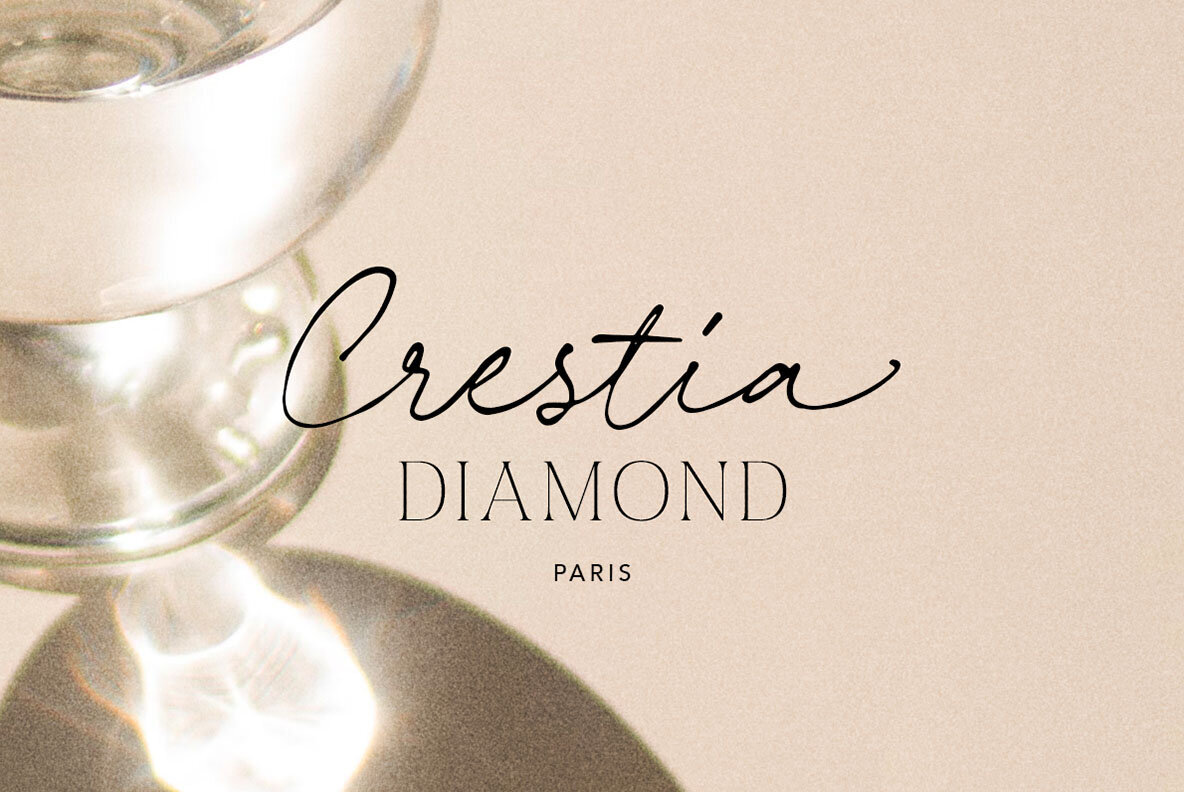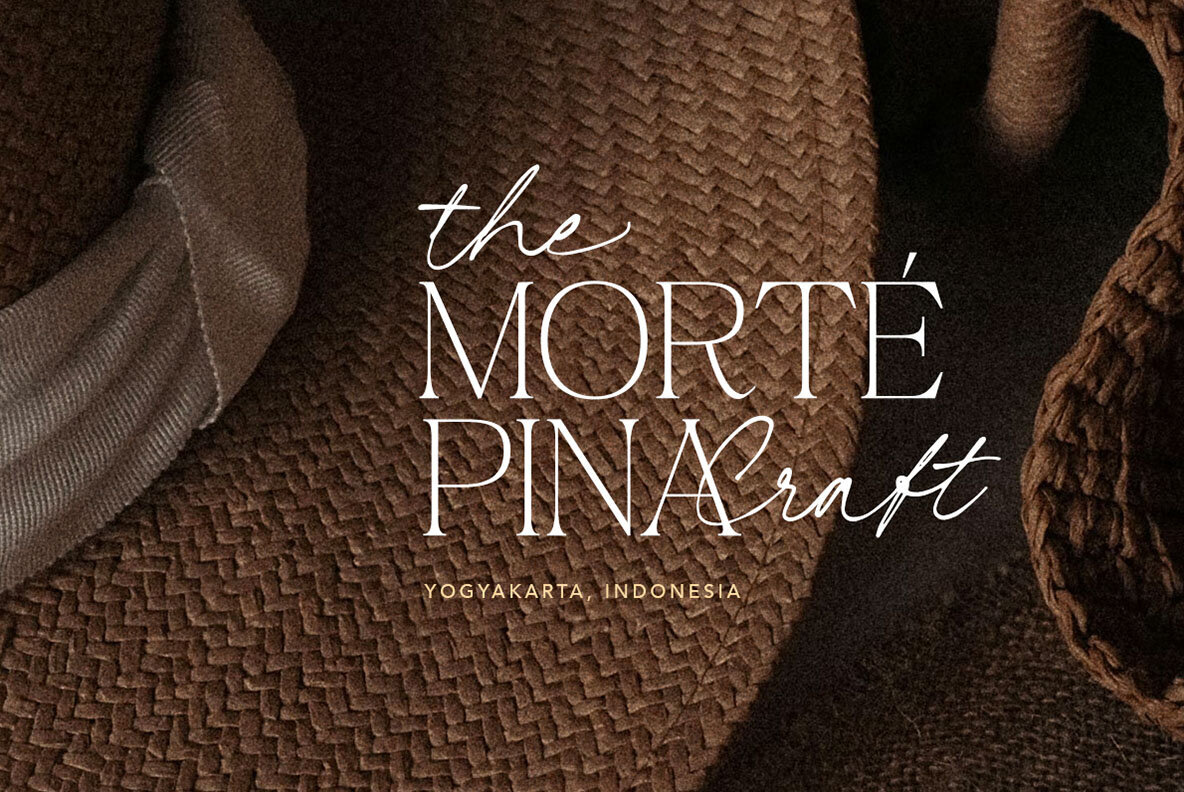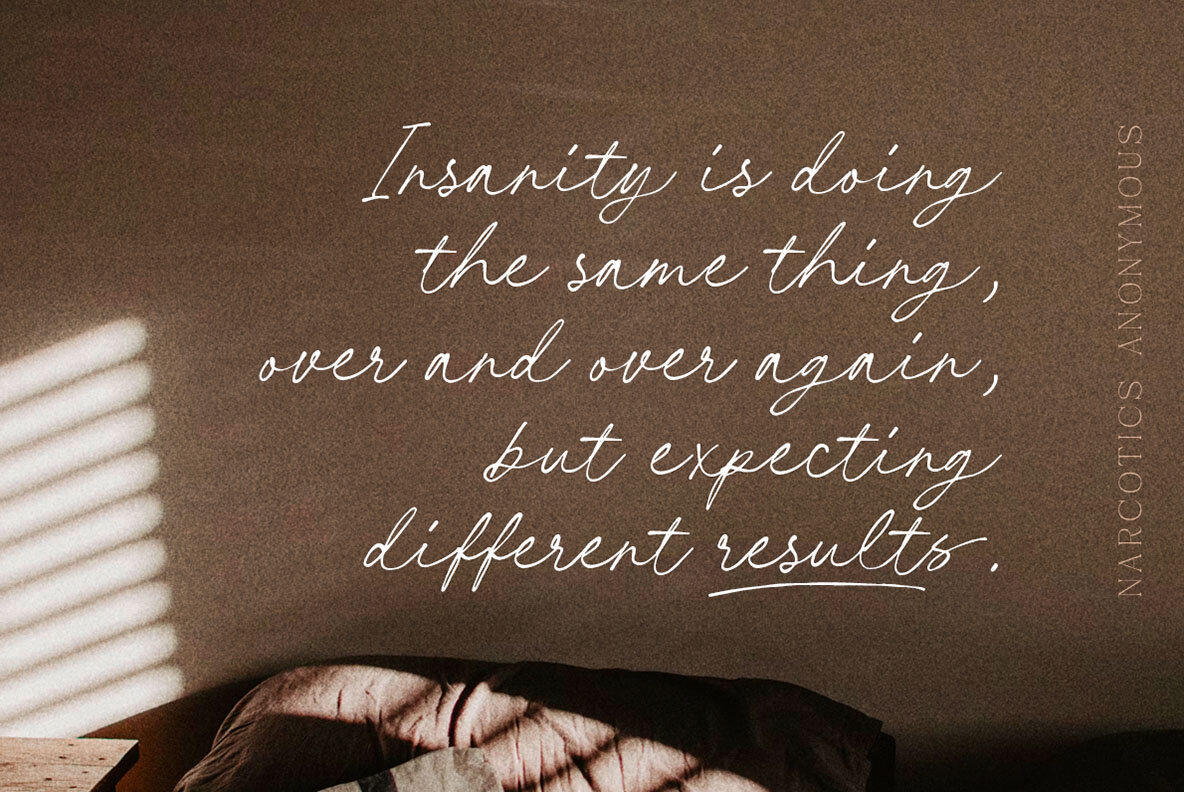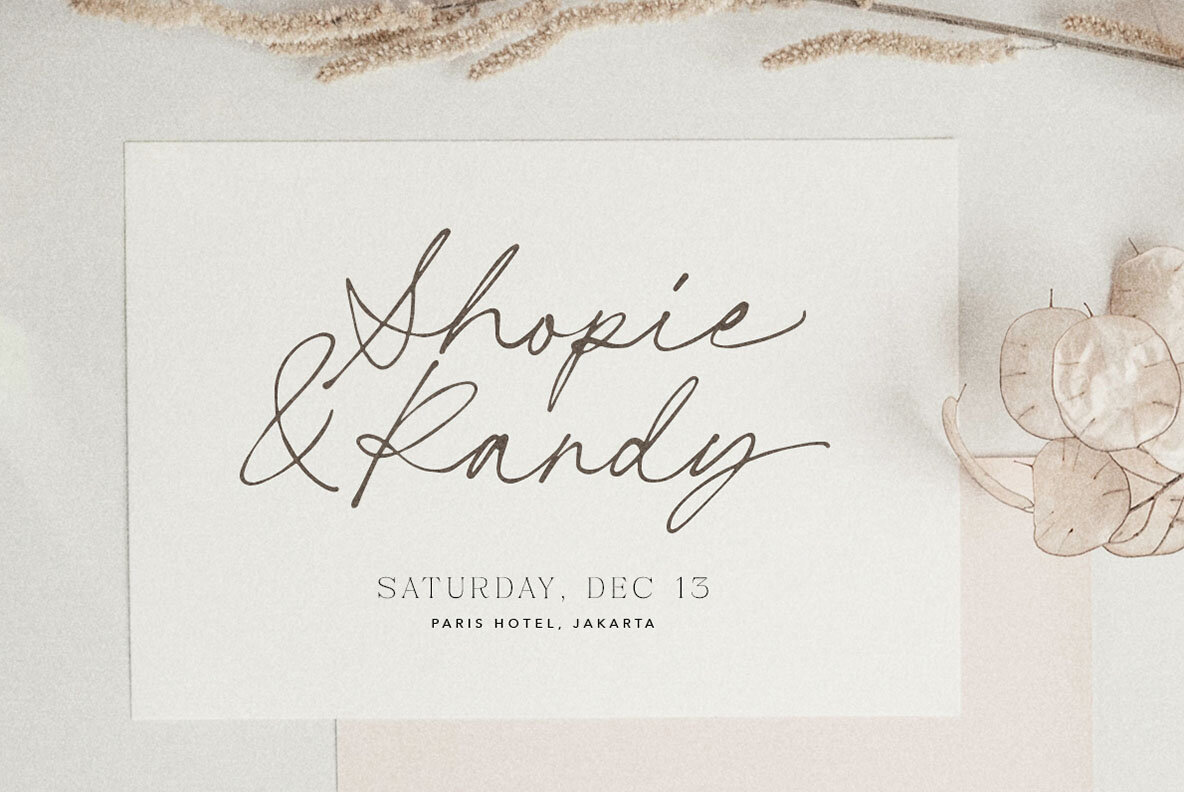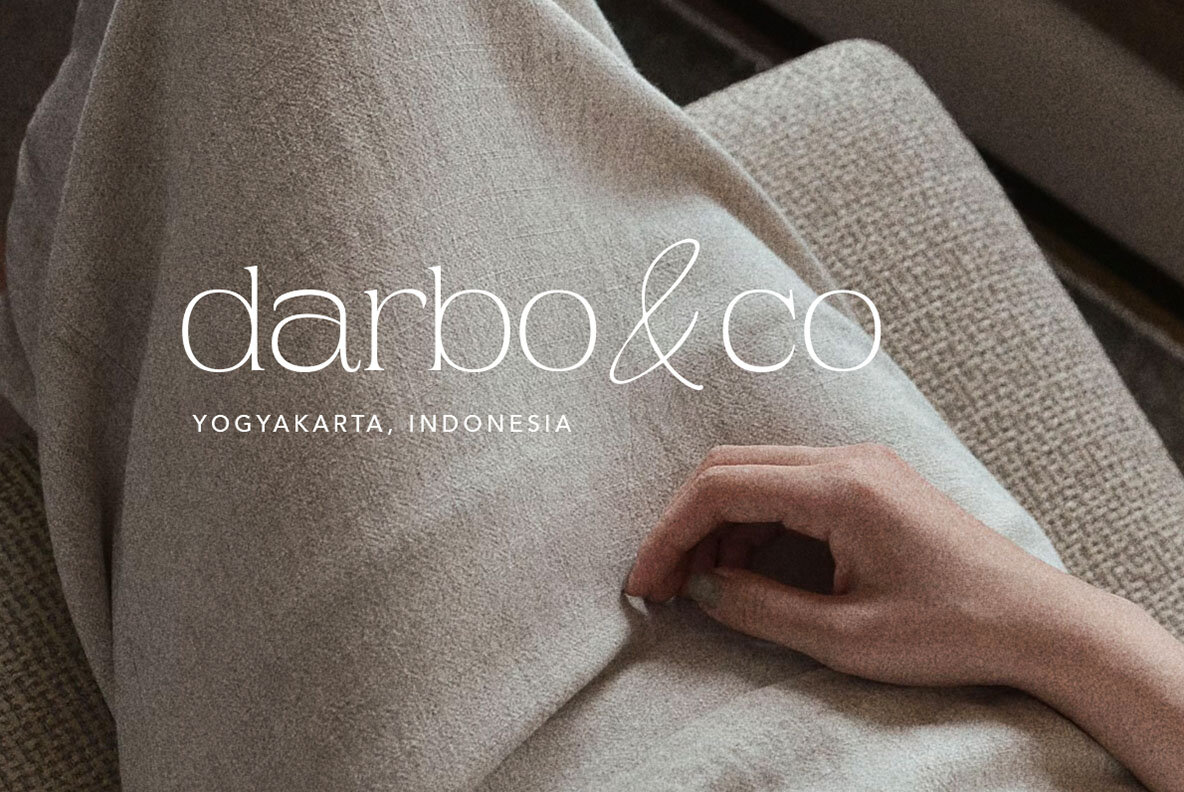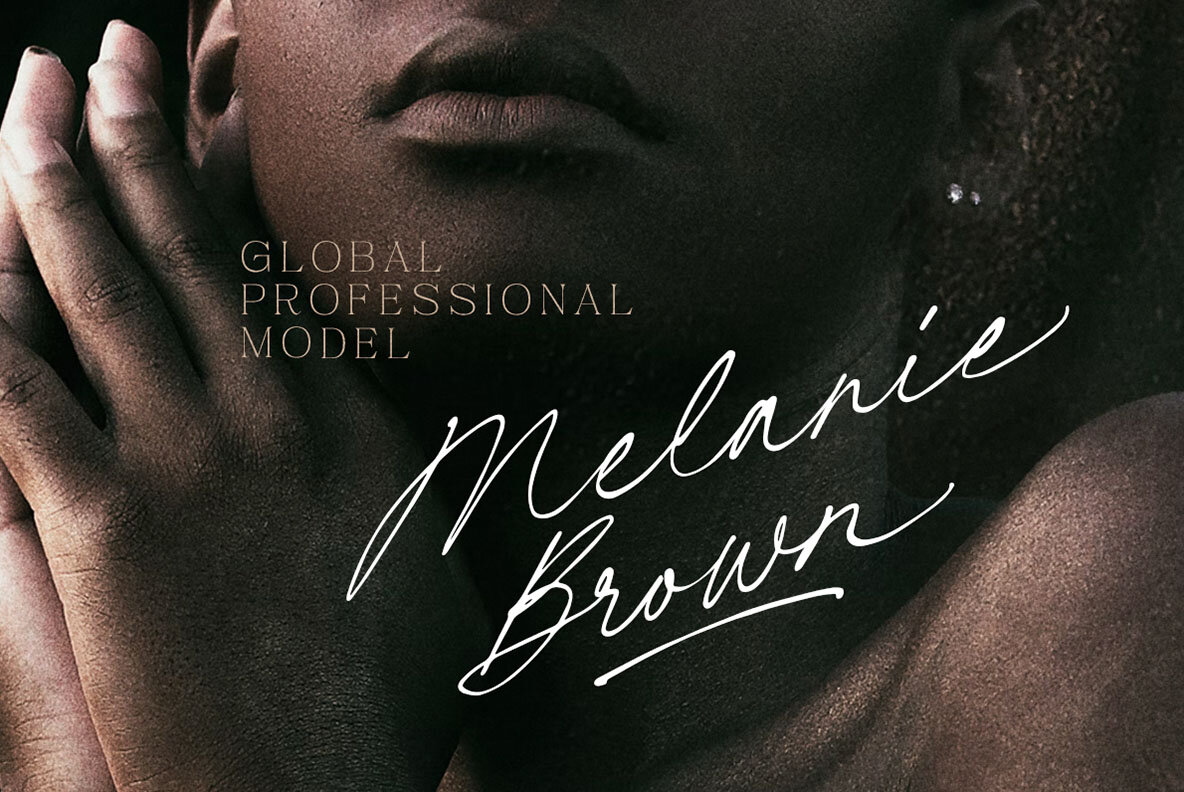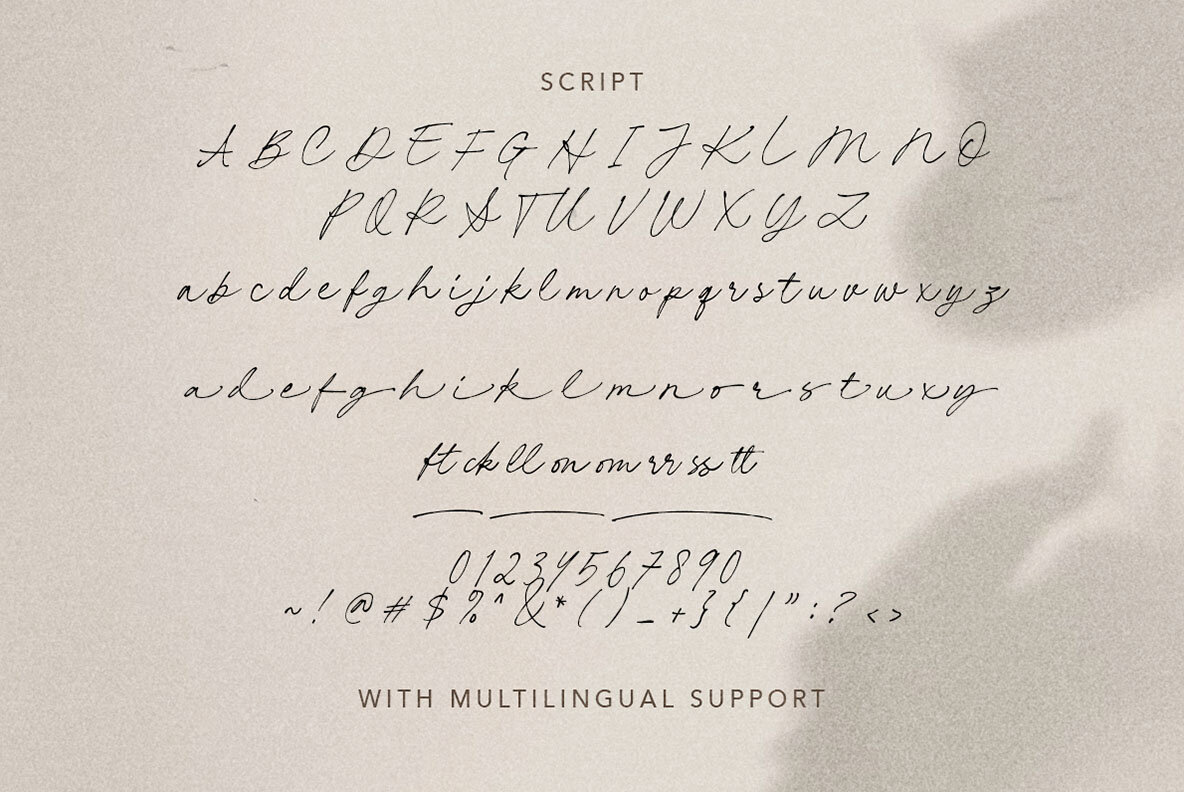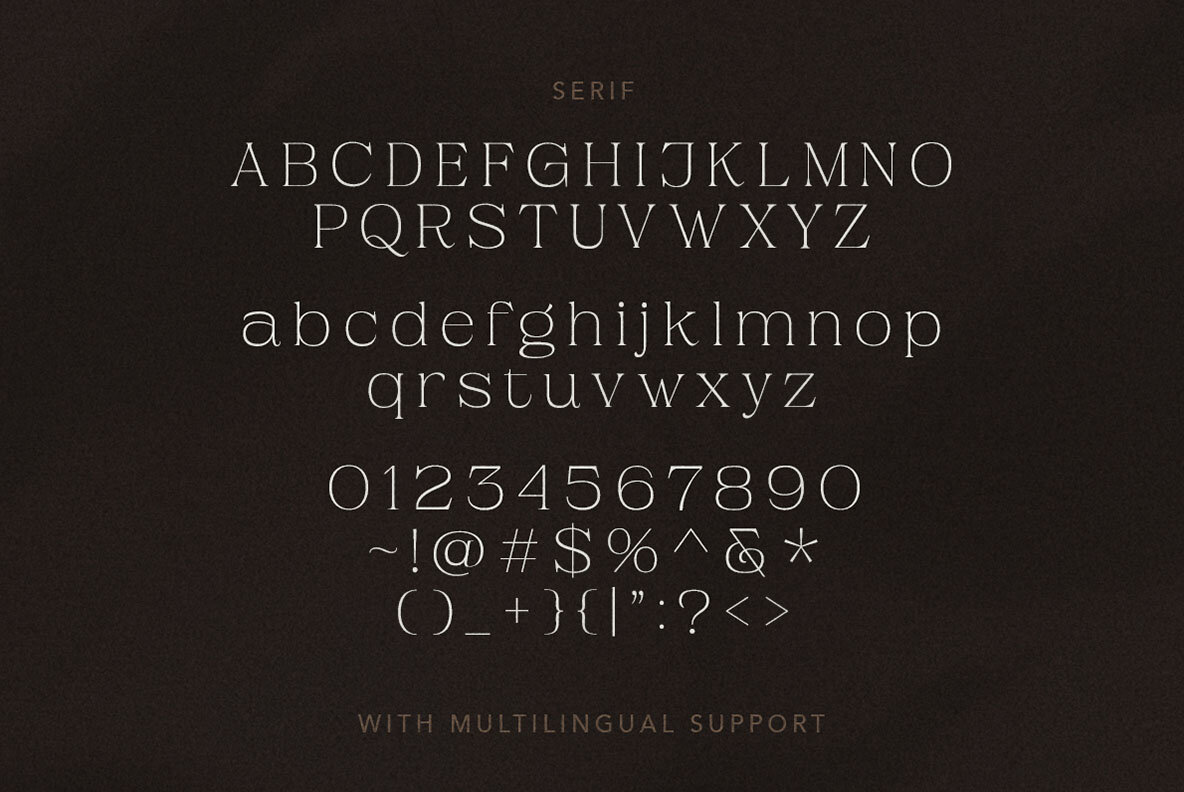
Claire Palmer Font
The Claire Palmer font duo is a stunning combination of a script and serif font that creates a modern and sophisticated look. The flowing strokes and graceful curves of the script font complement the clean and traditional design of the serif font, making it a versatile choice for a wide range of projects. Whether you're working on a logo, invitation, label, magazine, book, greeting or wedding card, packaging, fashion, makeup, stationery, novel, label, or any type of advertising purpose, the Claire Palmer font duo is the perfect combination for a professional and stylish look.
The Claire Palmer font duo offers a variety of features for customization and versatility. The fonts include both uppercase and lowercase letters, numbers, and punctuation, as well as alternates and ligatures for even more customization options. The fonts are also PUA encoded and support multiple languages, making it easy to create designs for a global audience.